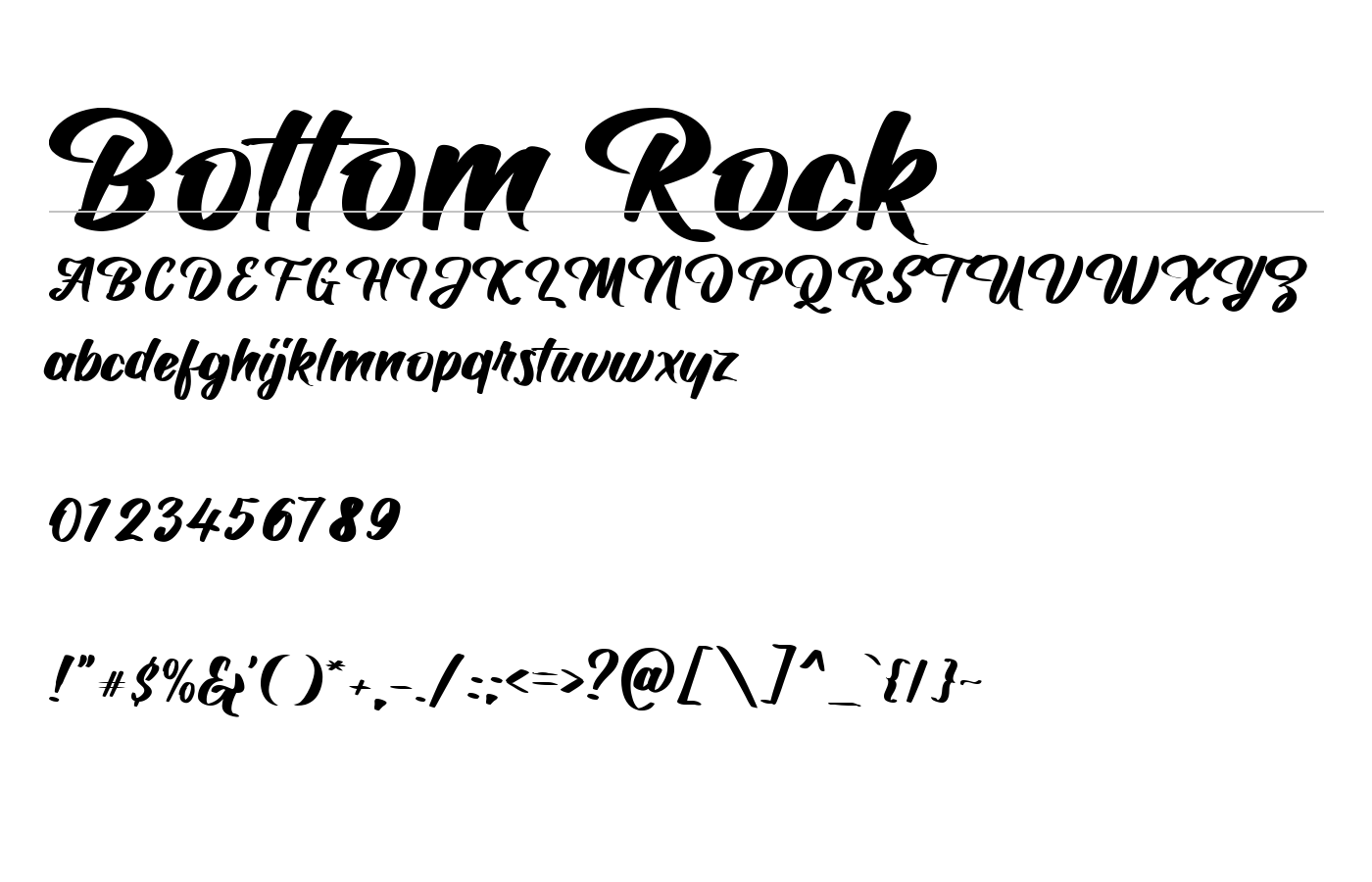
Bottom Rock is a bold, brush-style script font with a lively, handcrafted feel. Its strong strokes and dynamic curves make it ideal for eye-catching headlines, logos, and branding that seek to convey energy and personality. This font works well in creative, casual, and stylish contexts where a modern, artistic touch is desired.
Bottom Rock Font
About Bottom Rock Font
| Font family | Bottom Rock Font |